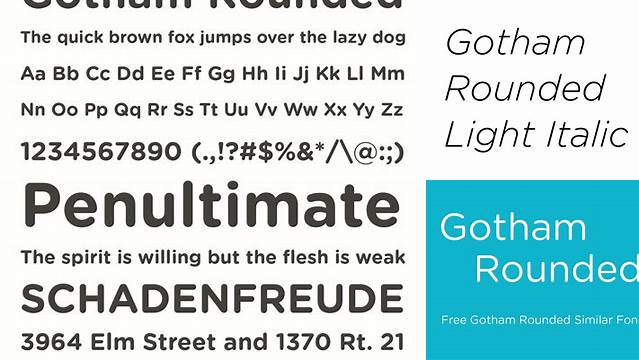
Gotham Rounded Light Free Font
Hey guys, let's dive right into the world of typography, shall we? Today, we're going to explore the Gotham Rounded Light Free Font. This font has become incredibly popular, and for good reason! Its clean, modern aesthetic and versatility make it a fantastic choice for various design projects. So, what exactly is it, and where can you get your hands on it? Let's break it down.
Firstly, the Gotham Rounded Light Free Font is a variation of the original Gotham font family. Gotham, designed by Tobias Frere-Jones, is renowned for its geometric sans-serif design, which gives it a very contemporary feel. The 'Rounded' aspect of this particular font means that the edges of the letters are, well, rounded! This adds a touch of softness and friendliness to the otherwise structured design. The 'Light' designation indicates the weight or thickness of the strokes; 'Light' fonts are thinner and more delicate, which is perfect for headings, subheadings, or when you want a subtle touch of elegance.
The Design Characteristics and Aesthetics of the Gotham Rounded Light Free Font
Alright, let's delve into the design details. The Gotham Rounded Light Free Font offers a beautiful blend of modernity and approachability. This font's clean lines and rounded terminals (the ends of the letter strokes) create a feeling of warmth, making it very easy to read and visually appealing. This makes it an excellent choice for a variety of applications, from website headings to print materials. The light weight of the font adds to its elegance and subtlety. This is what makes it a fantastic choice for conveying a modern, friendly, and approachable vibe. The geometric shapes used in its design give it a strong sense of order and structure, while the rounded edges soften the overall appearance, avoiding a harsh or overly rigid aesthetic.
The aesthetic appeal of the Gotham Rounded Light Free Font also comes from its neutrality. This means it can be applied to a wide variety of designs and projects without clashing with the overall style. It doesn't scream for attention, but it subtly enhances the content it supports. It works wonderfully as both a display font (for headlines and titles) and a body font (for longer blocks of text), although, in the latter case, you might find the Light weight more appropriate for subheadings or pull quotes to avoid the text appearing too thin. The rounded terminals create a sense of harmony within the design, and they are very pleasing to the eye. Furthermore, the font is highly legible at various sizes, which ensures readability even in smaller applications. The design of each character is well-balanced and proportioned, resulting in an overall harmonious and pleasing appearance. The Gotham Rounded Light Free Font also benefits from its close association with the broader Gotham family. It carries the same pedigree, allowing you to mix and match with other weights and styles of Gotham to achieve a cohesive and professional look in your designs. The design characteristics make it a great font to use in a wide range of scenarios and projects.
Comparing Gotham Rounded Light to Other Similar Free Fonts
Okay, let's compare the Gotham Rounded Light Free Font to other similar free fonts available out there. This will help you get a sense of its unique qualities and how it stacks up against the competition. There's a whole sea of free fonts out there, but not all are created equal. We need to figure out what makes Gotham Rounded Light Free Font stand out.
One popular font often compared to Gotham is Open Sans. Open Sans is a humanist sans-serif font, known for its readability and clarity. While both are excellent options, they have distinct characteristics. Open Sans has a more open structure, which helps with readability at smaller sizes, while the Gotham Rounded Light Free Font provides a unique rounded touch. Another popular option is Montserrat, a geometric sans-serif font inspired by the urban typography of the Montserrat neighborhood in Buenos Aires. While Montserrat shares Gotham's geometric structure, it has a slightly more condensed appearance, which could make it feel a bit tighter than Gotham. Then, we have Lato. Lato, another sans-serif font, is characterized by its semi-rounded details, which make it warm and friendly. It's more playful than Gotham Rounded Light Free Font, which may be beneficial in certain design projects.
Now, what are the unique advantages of the Gotham Rounded Light Free Font? It strikes a perfect balance between modern geometry and rounded softness. This makes it a great choice for a broad range of projects where you need a touch of friendliness without sacrificing professionalism. Its clean design is easy to read and aesthetically pleasing. The different weights available in the full Gotham family allow for flexibility. If you have access to the full family (or a paid version with more weights), you can combine Gotham Rounded Light Free Font with heavier weights of Gotham for a cohesive design. The close association with the acclaimed Gotham family gives it a professional edge and design heritage that helps it stand out from many other free fonts. When comparing, make sure to consider the context and the overall message you're trying to deliver. Choosing the best font is not about what is the best, but what is best for your project.
Best Practices for Using Gotham Rounded Light in Web Design
Alright, let's discuss how to use the Gotham Rounded Light Free Font effectively in web design. Web design is a visual medium, and the choice of font plays a critical role in conveying your message and keeping users engaged. We need to look at what makes this specific font awesome for this field. First things first, consider the context of your website. Is it a blog, an e-commerce store, or a corporate website? The character of your website affects your font choice. Its versatility makes it a good option for any design, but it is more appropriate in certain situations.
For headings, the Gotham Rounded Light Free Font excels. Its clean and modern design makes headlines pop and grabs the user's attention. Because of its elegant simplicity, it creates a strong visual impact without being overwhelming. When using the font for headings, make sure it is large enough to be clearly readable. Use it in various sizes for different heading levels (H1, H2, H3, etc.) to establish a clear hierarchy. Then, think about combining it with other fonts. Pairing Gotham Rounded Light Free Font with a good font for body text is essential. For the main body text, it's usually best to use a font that's optimized for readability at smaller sizes. The combination helps you balance the visual impact of the headings with the readability of the body text. When selecting a body font, focus on legibility, and consider factors like letter spacing and x-height. In web design, you need to make sure your font is web-safe. These fonts are pre-installed on most computers. That said, modern web design allows you to use custom fonts. To use a free font like Gotham Rounded Light Free Font, you'll have to make sure it's available in a web-friendly format (e.g., .woff, .woff2). Then, you'll need to embed it in your website's CSS using the @font-face rule. You can look online for tutorials on this process, as it is very important.
Incorporating Gotham Rounded Light into Print Design Projects
Let's see how to get the most out of the Gotham Rounded Light Free Font in print design projects. Print design is a world of physical materials, and the choices of font have to take into account the constraints of this medium. When designing for print, you've got to think about factors like resolution, color, and how the final product will be printed. The Gotham Rounded Light Free Font is a great choice for a wide range of print projects. Its clean lines and rounded design make it appealing in different contexts. When working with Gotham Rounded Light Free Font in print, consider its uses. It works really well as a headline font on posters, brochures, and flyers. Because of its modern and friendly aesthetic, it creates an immediate impact. Use it to grab attention, to highlight key information, and to make your message memorable. For body text in print design, think about readability. In general, it is best to use the font in print design. The Gotham Rounded Light Free Font can be used for body text, but its light weight is best suited for subheadings or short paragraphs. Consider pairing it with a more robust font for body text to ensure your content is easy to read.
Another critical factor in print design is the size and spacing of the text. Make sure to choose the right point size for the text. The size should be legible at the viewing distance. Also, pay close attention to the kerning (the space between individual letters) and leading (the space between lines). Too much or too little spacing can affect readability. Finally, if you're working on a print project, make sure you use a vector format. Vector graphics are resolution-independent, which means that they can be scaled to any size without losing quality.
Gotham Rounded Light's Suitability for Branding and Logo Design
Time to see how the Gotham Rounded Light Free Font measures up for branding and logo design. It's important to select the right font to project the character of your brand, to create a visual identity, and to connect with the target audience. Choosing the right font is an essential part of the branding process. The Gotham Rounded Light Free Font, with its friendly and modern aesthetic, can be a great choice for branding and logo design. The rounded terminals and geometric structure create a sense of approachability, while the clean lines give it a modern touch. When choosing it for logo design, it can provide a unique personality to your logo. But make sure that the font aligns with the overall brand identity and the values of your company. Consider whether it suits your brand's image. Does it reflect your brand's tone, personality, and target audience? A logo that is well-designed with the right font will strengthen the brand identity.
Also, consider the versatility of the font. A good font should be able to work well across different applications and formats. It must be legible at various sizes and work in different contexts (from social media to print materials). When using the Gotham Rounded Light Free Font in a logo, make sure the font is adaptable and scalable to different sizes. You must be able to use it on business cards, websites, and packaging. Experiment with different weights of the Gotham Rounded Light Free Font, or other styles from the Gotham family. The ability to mix and match these different styles of Gotham will give you more design flexibility. The font has the potential to contribute to the overall visual identity of the brand.
The Benefits and Drawbacks of Using the Gotham Rounded Light Free Font
Let's break down the advantages and disadvantages of using the Gotham Rounded Light Free Font. Every font has its strengths and weaknesses. It is a good idea to understand them so that you can make informed decisions. The Gotham Rounded Light Free Font has several key benefits. Its clean, modern, and friendly design makes it a great choice for many applications. Its rounded terminals make it visually appealing, which improves reader engagement. The fact that it is a part of the larger and more established Gotham family gives the font a professional edge and allows for flexible design choices. The Gotham Rounded Light Free Font is a versatile font. It works well for headings, subheadings, and short blocks of text, making it appropriate for use across a wide range of projects. And finally, it is easy to read in various sizes, which makes it a great choice for both print and digital projects. The availability of free versions (with proper licensing) also makes it an accessible option for designers on a budget.
Now, what are the drawbacks? The Gotham Rounded Light Free Font is not the best choice for all types of projects. Its light weight might not be appropriate for longer blocks of body text. Its subtlety could mean it gets lost in certain designs, especially where strong visual impact is required. While free versions are available, the full Gotham family is commercial. This can lead to limitations in terms of the weights and styles that you can use. You should also consider the fact that the widespread use of Gotham and its variations, might make your design less unique, depending on its application. When choosing a font, always weigh its pros and cons to ensure that it aligns with the goals of your project.
How to Pair Gotham Rounded Light with Other Fonts for Optimal Design
Let's talk about pairing the Gotham Rounded Light Free Font with other fonts. Font pairing is the art of combining fonts to create a harmonious and visually appealing design. It is crucial to think about the overall look and message you want to communicate. When pairing, the first thing to consider is contrast. This is about creating visual interest by using fonts that are different from each other, but that still work well together. Contrast can come from the different styles, weights, and sizes of the fonts you select. Then, think about creating a hierarchy in your design. This means using different font combinations to guide the reader's eye through your content and to highlight key information. The Gotham Rounded Light Free Font can be combined with a variety of fonts. When using it for headings, a good choice is to pair it with a font for body text. The body text should be a font that is easy to read at smaller sizes. A good example of a font that pairs well with the Gotham Rounded Light Free Font is Open Sans. Open Sans is a clean and readable sans-serif font that complements the clean lines of Gotham. A serif font like Georgia or a slab serif like Roboto Slab can also complement it well.
When selecting complementary fonts, consider the overall style of your design. If you want a modern look, pair it with other modern fonts. If you are trying to create a more classic feel, a serif font can work well. Also, make sure the font pairing is consistent with your branding. Try different combinations to see what suits the project best. Experiment with different weights and styles of the fonts to create contrast and interest. Remember to test your design by checking how the font pairings look in different contexts (website, print materials, etc.). Finally, always make sure the fonts are legible and communicate the message effectively.
Exploring Alternatives to the Gotham Rounded Light Free Font
Alright, let's check out some alternatives to the Gotham Rounded Light Free Font. While the Gotham Rounded Light Free Font is a fantastic choice, it's always a good idea to explore other options. Each font has its own character and can be more appropriate for certain projects. Here are some alternatives: One excellent alternative is Open Sans. It's a humanist sans-serif font that is known for its readability and clarity. While it might not have the rounded terminals of Gotham, it is a great option for body text. Another good choice is Montserrat, a geometric sans-serif font inspired by the urban typography of Buenos Aires. Montserrat is clean and modern, which is a good choice for headings or display text. Then, there is Lato, a sans-serif font that is characterized by its semi-rounded details, which give it a warm and friendly feel. Lato is a great option if you're looking for something a little less formal than Gotham.
When selecting an alternative, consider the overall style and tone of your design project. Does your project need a modern, friendly aesthetic? Consider Montserrat or Lato. Or, does your project need a clean and readable body font? If so, Open Sans may be a better choice. You can compare the qualities of each font to select the best one for your project. Consider the weight and style of the font. Make sure that it's readable in the size that you plan to use it. Also, evaluate the license of each font. Make sure that you can use the font in your project legally. Finally, be open to experimentation. Try out different fonts to find the one that best fits your vision. There are many great free fonts out there!
Legal Considerations and Licensing for Gotham Rounded Light
Let's look at the legal side of the Gotham Rounded Light Free Font and licensing. It's important to fully understand the legal aspects and licensing of any font you're using. Using a font without the right permissions can lead to legal issues, especially in commercial projects. When using the Gotham Rounded Light Free Font, or any font, you'll need to understand the licensing terms associated with it. The licensing determines how you can use the font (personal or commercial use) and whether you need to pay for a license. As we said before, make sure to check the licensing terms of the font. Many free fonts are available for personal use, but may require a paid license for commercial projects. Open Font License (OFL) is a license that permits free use, modification, and distribution of fonts. When downloading the font, always check the license details. The details are usually found on the website from which you download the font. In the licensing, you'll find the permitted uses, restrictions, and requirements for attribution. Understand the license terms and how they apply to your project. Also, find out if the font has any limitations on the number of uses, or the types of projects where you can use it. Avoid downloading fonts from untrusted sources. Verify the credibility of the source to ensure the font is properly licensed and that you are not violating any copyright laws. Keep a copy of the license agreement for your records, as proof of your compliance. Be aware of the restrictions that exist, and follow the rules. If you are ever in doubt, consult with a legal professional.
Tips for Customizing and Modifying Gotham Rounded Light
Let's delve into how to customize and modify the Gotham Rounded Light Free Font. Customizing and modifying fonts can make them more suitable for your specific projects. But it's important to note that the possibilities can depend on the font's license. For many free fonts, modification may be restricted. So before you begin, make sure to check the font's license. Then, consider what modifications can improve the font for your project. Do you need to adjust the kerning (spacing between letters) or the tracking (overall letter spacing)? The customization can affect the readability and appearance of your design. Many design software applications (Adobe Photoshop, Illustrator, etc.) give you control over the kerning and tracking of a font. Then, consider using different weights and styles within the Gotham family. By combining the different weights, you can create visual interest and a clear typographic hierarchy. The combination can help you create a more interesting and dynamic design. For more advanced customization, consider working with a font editor. These are specialized programs that allow you to change a font's shape. If you're allowed to modify the font, you can change the character glyphs, add new ones, or create a completely new design. But this is generally not recommended for beginners. Font editors can be complex, and modifying a font requires significant technical knowledge and artistic skill. And always, back up your original font files before making any changes. This will protect you from data loss, or from making unintentional changes. By taking these steps, you will make the font work best for your needs.
The History and Origins of the Gotham Font Family
Let's discover the history and the origins of the Gotham Rounded Light Free Font's parent, the Gotham font family. The history and the origin of a font can give us a deeper appreciation for it. The Gotham font family was created by American type designer Tobias Frere-Jones. Frere-Jones' design was inspired by the architectural signage of New York City. His goal was to create a geometric sans-serif font that would be both modern and functional. The Gotham Rounded Light Free Font is a variation of the original. The font was first released in 2000. The original Gotham font family was very successful, and it quickly gained popularity. Its clean, geometric design made it a good choice for a wide range of applications. The Gotham Rounded Light Free Font is a variation of the original. The variation was created to soften the design and to improve readability. Since its initial release, the Gotham font family has been widely adopted. It is used in a large variety of projects, from branding and marketing materials to website design. It is well-known for its use in the Obama presidential campaign. The original Gotham font family has expanded over time. Frere-Jones released multiple different weights and styles. The font is a favorite of many designers because of its versatility and aesthetic appeal.
Gotham Rounded Light in Various Design Software and Platforms
Let's explore how the Gotham Rounded Light Free Font works on different design software and platforms. Knowing how to use the font in different software is essential for achieving the desired results. The Gotham Rounded Light Free Font can be used on most design software platforms. This makes it very versatile. On programs such as Adobe Photoshop, Adobe Illustrator, and Canva, you can install and use the font. The process of installing the font varies between software and operating systems. The process usually includes downloading the font file and installing it into your system. Once installed, the font should be accessible in the font menu of your chosen design software. The font is also very useful on web design platforms, such as WordPress, Squarespace, and Webflow. To use the Gotham Rounded Light Free Font on a website, you'll need to use a web-safe format of the font. Then, upload the font to your website. Also, add the font to the CSS file of your website. You can then set the font in your website's styles, and use it for headings, body text, or any other design element. The font is also compatible with word processing programs such as Microsoft Word and Google Docs. To use the font, you can install it on your system and select it in the font menu. Ensure compatibility by checking the software's font support, and that you have the necessary licensing and the correct font file formats for each platform.
Troubleshooting Common Issues with Gotham Rounded Light
Let's talk about troubleshooting the most common problems with the Gotham Rounded Light Free Font. Things can go wrong when using a font. So, knowing how to solve these issues will help you. One common issue is with the font not showing up in your design software. This can happen for several reasons. First, make sure you have installed the font correctly on your system. It may also be that the design software must be restarted after the installation. Then, check the font file. Check to make sure you have the correct font file format (OTF or TTF), and make sure the font file is not corrupt. If the font appears but is distorted, the font may be missing a necessary style, or may be an older version. Another issue is the poor rendering of the font. The issues are usually with how the font displays on different screens or printers. You can try adjusting your screen's resolution or changing the font size. If the font is pixelated in print, you can try increasing the resolution of your design. Sometimes, you may run into problems with licensing or font compatibility. Make sure that you have the right to use the font in your project. You should always check the font's license. To solve font compatibility problems, use the appropriate font file formats for the software or platform you are using. Always make sure to keep your design software and operating system updated. Make sure that your design software is using the most recent version. Check online forums, or the software's support resources for additional help. If the issue persists, try using a different font, and reach out to the font's provider.
Maximizing Readability and Legibility with Gotham Rounded Light
Let's discover how to maximize readability and legibility with the Gotham Rounded Light Free Font. Readability and legibility are two of the most important aspects of using a font, especially for body text. If your font is hard to read, your message will not be able to be understood. The first thing to consider is font size. Make sure that the size is readable for your audience. For body text, you might need to use a larger point size than you would for headings. The second factor is letter spacing and line spacing. The spacing between letters and lines affects readability. If the letters are too close together, the text will be difficult to read. You may need to adjust the letter spacing and line spacing in your design software. Also, the color contrast between your text and background affects readability. Make sure there is enough contrast. If you use light text on a light background, the text will be hard to read. Then, ensure the font is used consistently. This means that you use the same font, size, and style for the different elements. The consistency makes your design easier to read. When using the Gotham Rounded Light Free Font, you should consider its light weight. While suitable for headings, its light weight may be difficult to read in large blocks of text. You should consider pairing it with a heavier weight. You should also keep your design simple. You must reduce the use of extra decorative elements that can distract the reader. By keeping these elements in mind, you can increase the readability and legibility of the font.
Gotham Rounded Light and Its Role in User Experience (UX) Design
Let's examine the role of the Gotham Rounded Light Free Font in user experience (UX) design. In UX design, every detail matters. From the layout of the website, to the images and, of course, to the font. The font is very important. The Gotham Rounded Light Free Font is a great choice for UX design. Its clean, modern, and friendly appearance, improves the user experience. This font can improve the user experience by improving readability. The rounded terminals of the font make it easy to read, which is important for guiding users through your website. Then, the font helps create a positive impression. The aesthetic of the Gotham Rounded Light Free Font is modern and friendly. Because of that, it helps to create a good first impression on visitors. Also, the Gotham Rounded Light Free Font helps to establish brand identity. Using the font across all elements of your design will promote consistency and brand recognition. Using the font in UX design, you must prioritize readability and legibility. You must select the font sizes and line spacing that makes the text easy to read on different devices. Also, you must select the correct colors, and choose a high-contrast color combination. Always consider the user's needs and preferences. The Gotham Rounded Light Free Font is a great choice because it provides a friendly and clean appearance, while improving readability.
The Future of Gotham Rounded Light and Font Trends
Let's gaze into the future of the Gotham Rounded Light Free Font and the trends in the font world. This can help us prepare for changes and choose the correct fonts. The Gotham Rounded Light Free Font, and the larger Gotham family, has the potential to evolve and adapt to new design trends. One possible trend is the incorporation of different weights. We may see a wider range of weights and styles, including bolder versions, to make it more versatile. Another trend involves exploring custom variations. With the rise of personalized branding, the demand for custom font variations may increase. Some designers might want to adjust the Gotham Rounded Light Free Font to fit their projects. One of the trends is the increasing use of variable fonts. Variable fonts can change the weight and style of the font within a single file. They provide greater flexibility for designers. Accessibility will be another important aspect. As websites and apps become more inclusive, fonts that are easier to read for people with visual impairments will become more important. With the continuous evolution of the design landscape, it is important to stay informed about current and upcoming trends. Keep learning about new font families. Then, adapt your design to the current trends. Ultimately, the key to success is to use the best font for your project.
Finding Inspiration and Examples of Gotham Rounded Light in Use
Let's find some inspiration and some great examples of the Gotham Rounded Light Free Font in use. Examining other people's work will give you an idea of how this font is used in different designs. When you're looking for inspiration, try exploring different design websites, like Behance, Dribbble, and Awwwards. These platforms have many projects that use the Gotham Rounded Light Free Font. Look at how the font is used in the overall design. Does it appear in the headings, body text, or in both? Also, see how the designers are using the font to create contrast and visual interest. Try searching for specific design projects. Search for keywords like